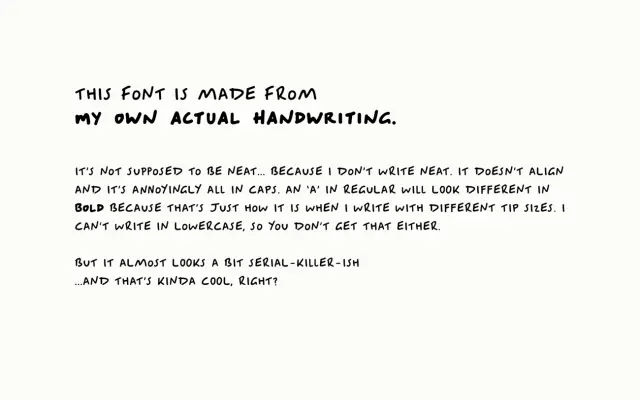
An all-caps handwriting font traced from the designer's own script, with deliberate misalignment and imperfection across two weights.
Built from the designer's actual handwriting rather than a polished approximation, Lore carries the idiosyncratic irregularity of a real pen on paper. It is all-caps only, intentionally misaligned, and comes in regular and bold weights totalling over 450 glyphs. The roughness is the point, making it suited to informal display work where manufactured neatness would feel out of place.
An all-caps handwriting font digitised directly from the designer's own handwriting, with deliberate irregularity and misalignment that places it firmly in the casual handwriting script category.